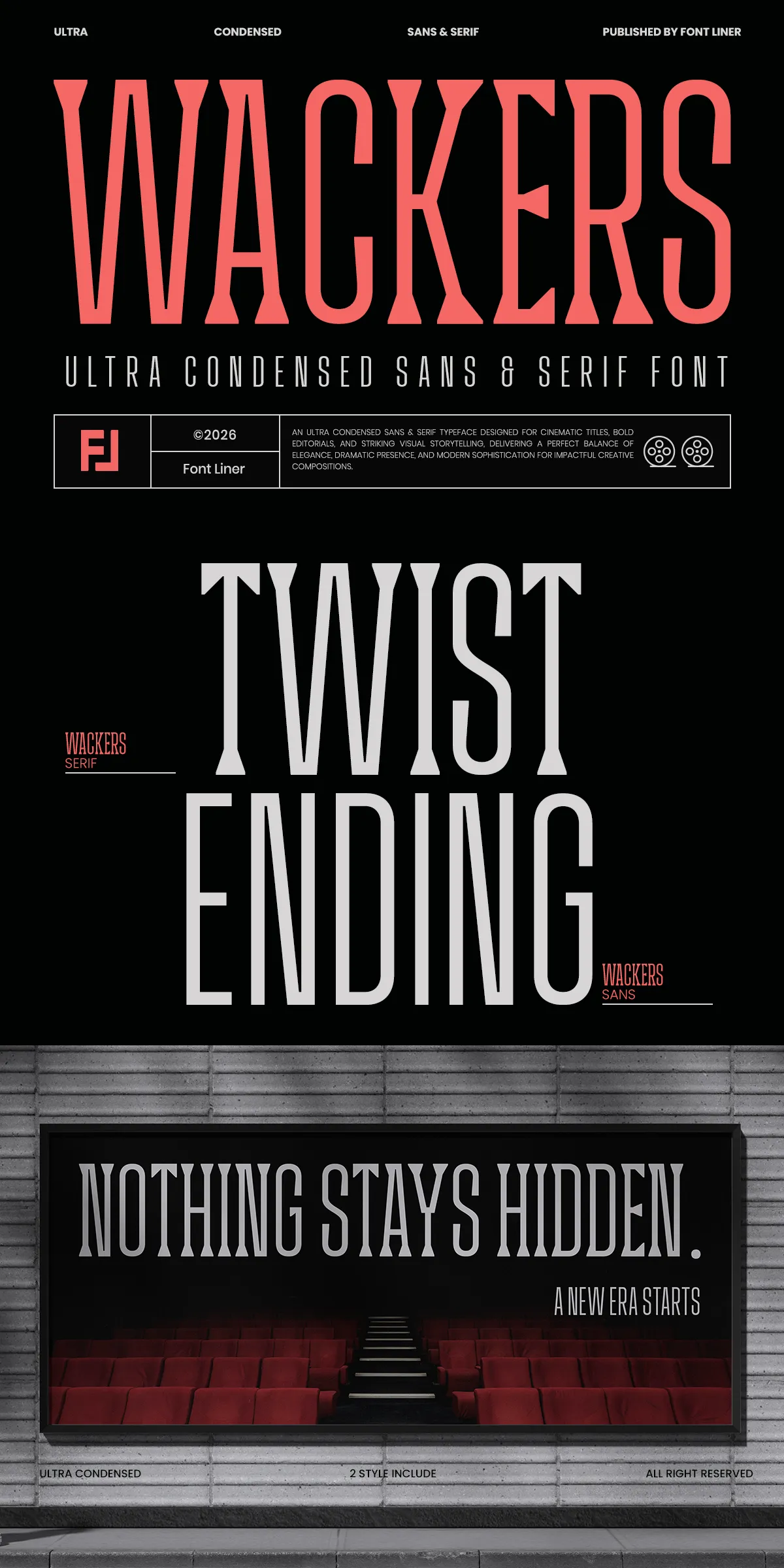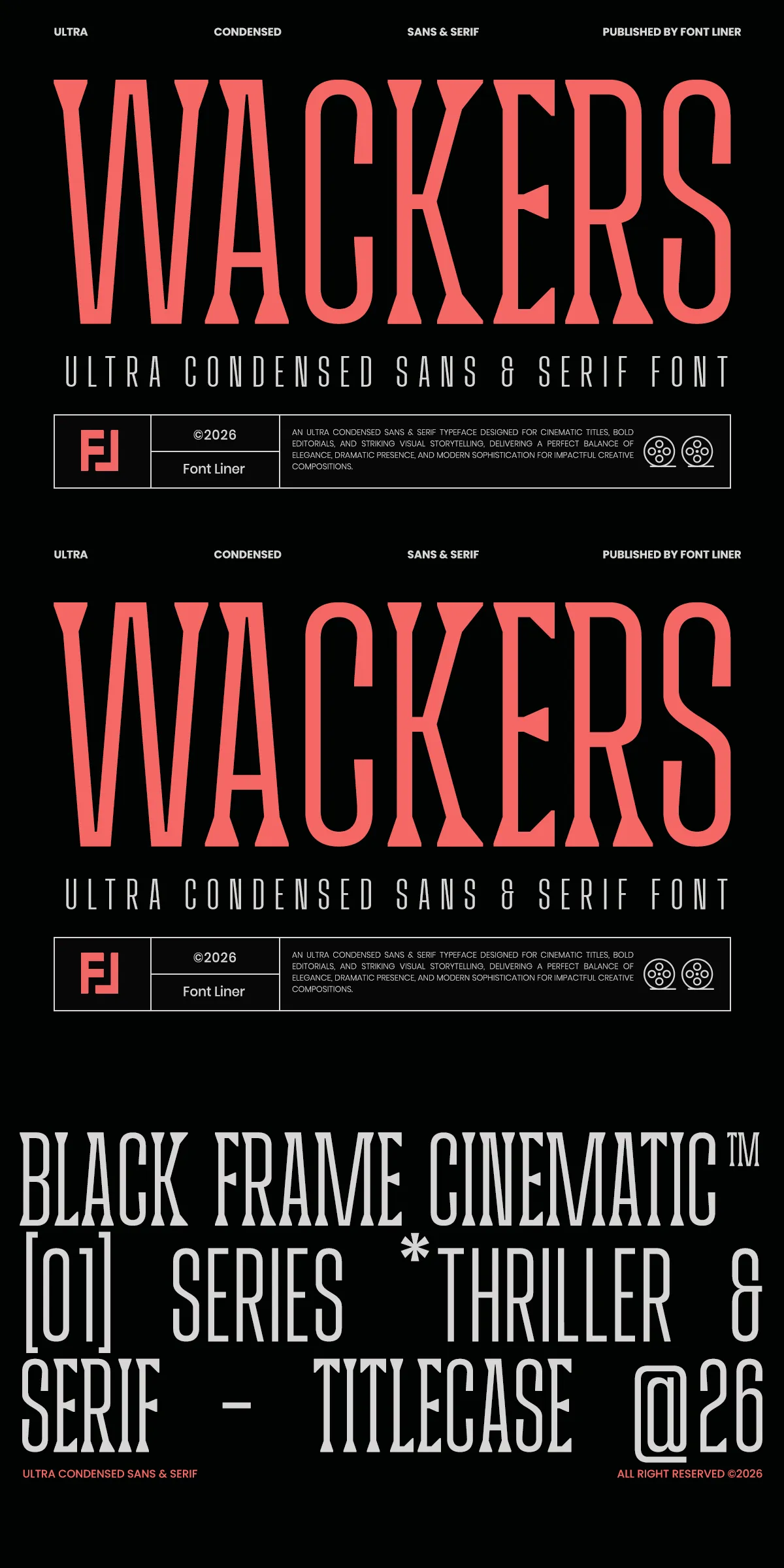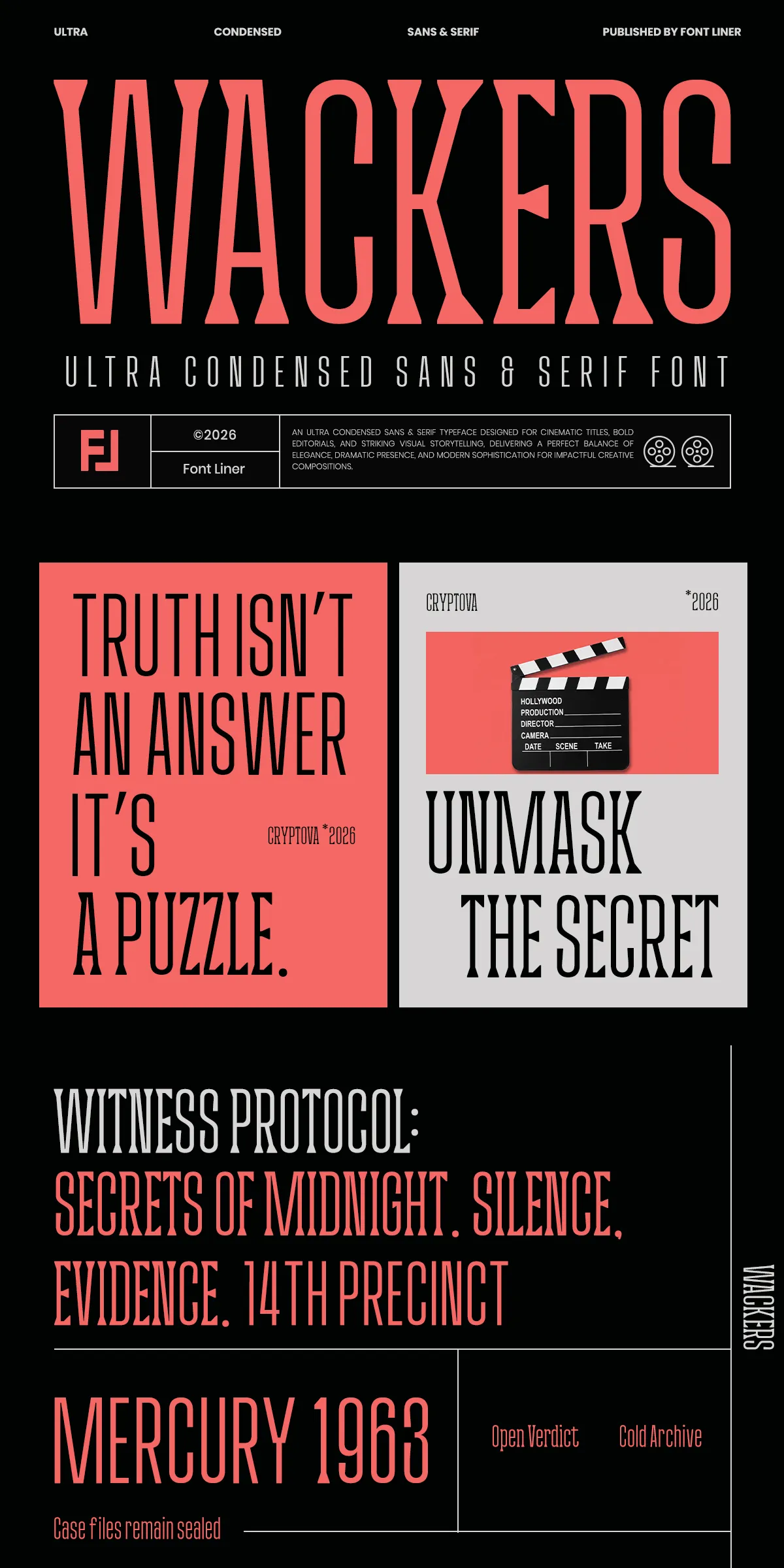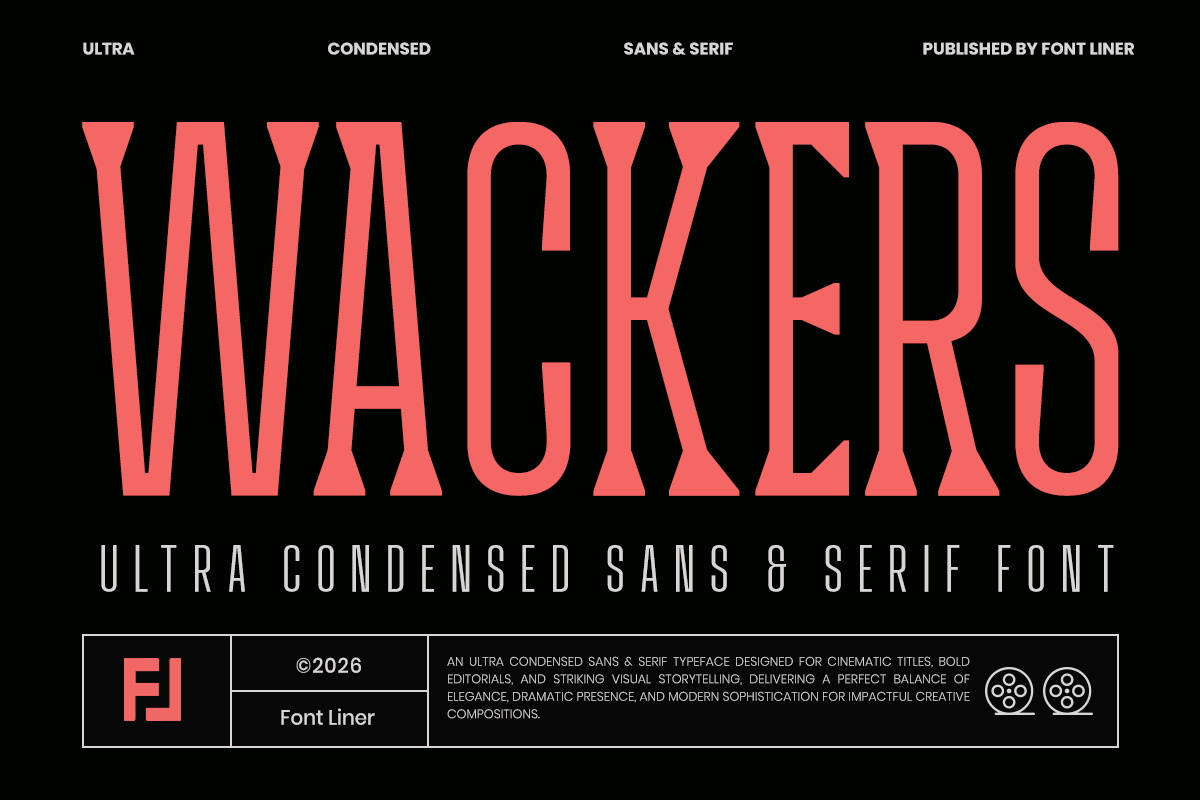
Wackers emerges as a striking and sophisticated typographic solution, meticulously engineered to combine the timeless elegance of classic serif typography with the razor-sharp precision of modern sans-serif design. In a world where space is often at a premium, Wackers offers designers a unique opportunity to achieve maximum visual impact without sacrificing readability or aesthetic refinement. This versatile font duo is crafted specifically for professionals who demand excellence in branding, cinematic titles, luxury editorials, fashion campaigns, and premium packaging.
Unmatched Versatility and Design Flexibility
What makes Wackers truly exceptional is its dual nature. The serif style injects a refined, vintage-inspired personality into your designs, evoking a sense of history, trust, and high-end sophistication. Simultaneously, the sans-serif version provides a clean, minimalist aesthetic that speaks to modernity, clarity, and forward-thinking innovation. This duality allows you to seamlessly adapt your visual identity across a wide spectrum of creative projects, ensuring that your brand remains consistent yet dynamic.
The distinctive tall proportions of Wackers create a dramatic vertical rhythm that naturally draws the eye upward. This characteristic is particularly powerful in large display sizes, where the font’s bold editorial feel takes center stage. Despite its condensed form, Wackers maintains excellent readability, making it an ideal choice for headlines, logotypes, and key messaging elements that need to command attention instantly.
Perfect for High-Stakes Creative Projects
Whether you are designing eye-catching movie posters, crafting compelling magazine headlines, developing comprehensive luxury branding systems, creating stunning product packaging, or launching impactful advertising campaigns, Wackers provides the versatility and elegance needed to elevate your visual storytelling. It is equally at home in high-end social media content, where space is limited but impact must be high. The font’s ability to stand out in any context ensures that your projects will leave a lasting impression on your audience.
Comprehensive Font Features and Support
Wackers is not just a pretty face; it is a robust toolkit for designers. The package includes both Serif and Sans styles, each available in Regular and Italic variants. This extensive character set ensures that you have the flexibility to create typographic hierarchies, add emphasis, and maintain a cohesive look across different text styles. The inclusion of uppercase and lowercase letters, along with a full set of numbers, symbols, and punctuation, guarantees that your text remains polished and professional in every situation.
- Wacker Serif and Sans Style: Two distinct typographic personalities in one package.
- Regular and Italic Style: Full variations for each style to create depth and emphasis.
- Uppercase and Lowercase: Complete character sets for versatile text application.